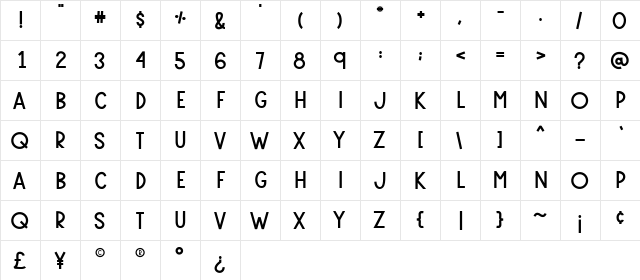
Lavigne Regular
| Foundry | Emylia Maratta |
| Designer | Emylia |
Design Context for Lavigne Typeface
Lavigne takes a measured approach to typography — its balanced proportions and neutral character make it a reliable workhorse for both digital and print work.